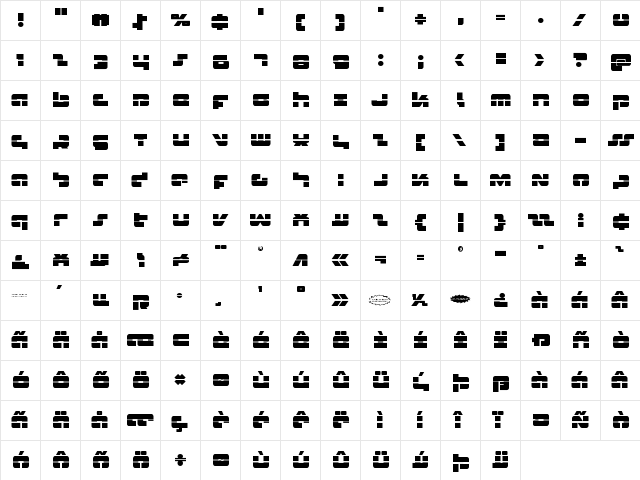
Boomstick Laser Regular
Design Context for Boomstick Laser Typeface
Boomstick Laser is a composed and adaptable typeface that performs quietly and consistently across a wide range of design contexts.